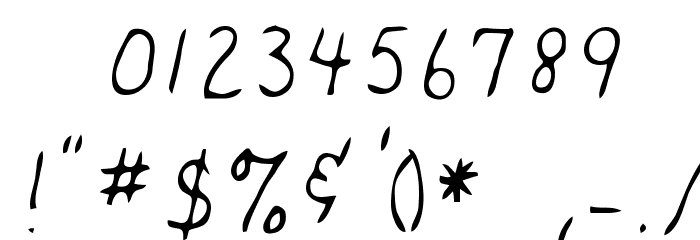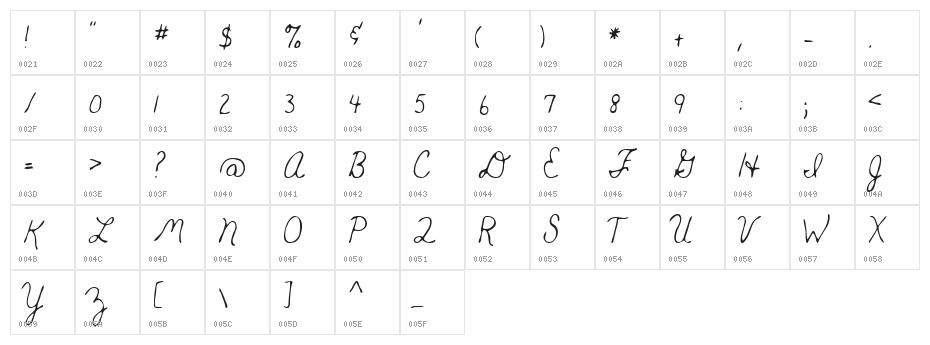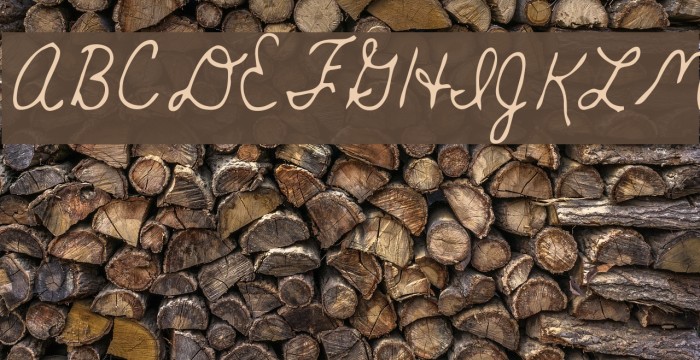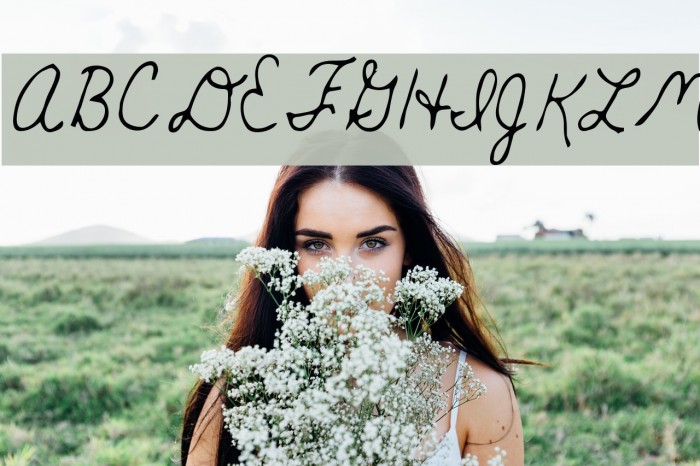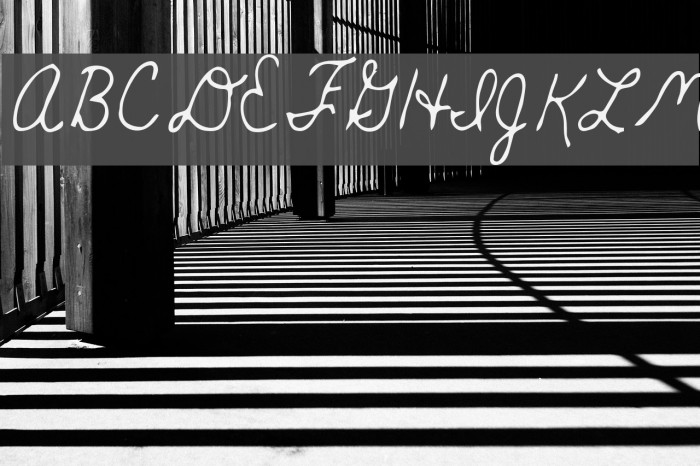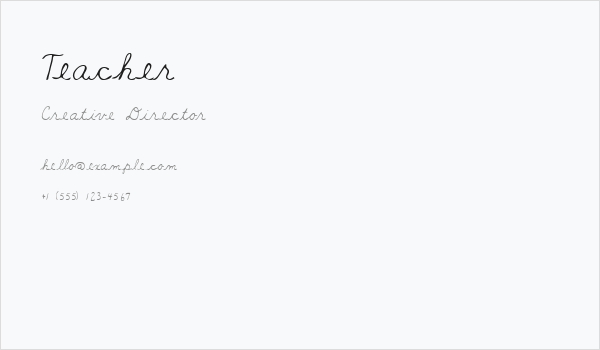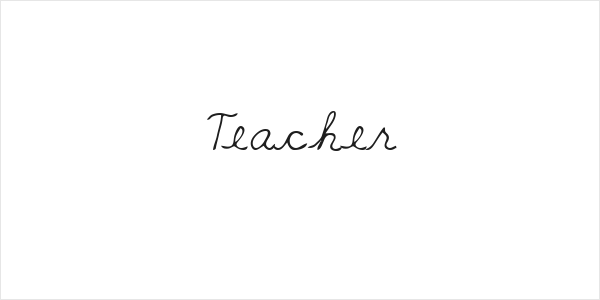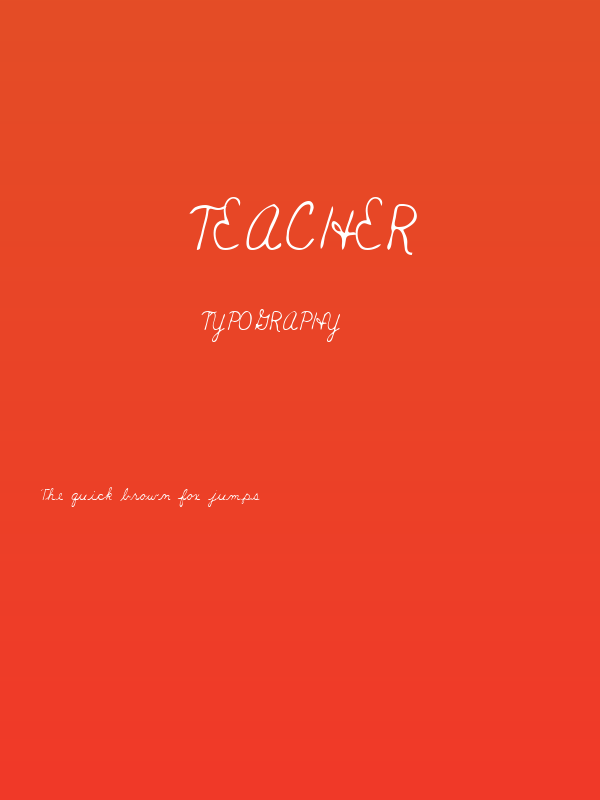
Teacher Font
Teacher Description
This font features a flowing, cursive style that mimics natural handwriting. The letters are connected, creating a seamless and elegant appearance. The uppercase letters have a distinct flair, with loops and curves that add a touch of sophistication. The lowercase letters maintain a consistent slant, enhancing the handwritten feel. Numbers are clear and legible, with a slight tilt that matches the overall style. Special characters are creatively integrated, maintaining the font's cohesive look. This font exudes a personal and artistic vibe, making it suitable for projects that require a touch of elegance and individuality.